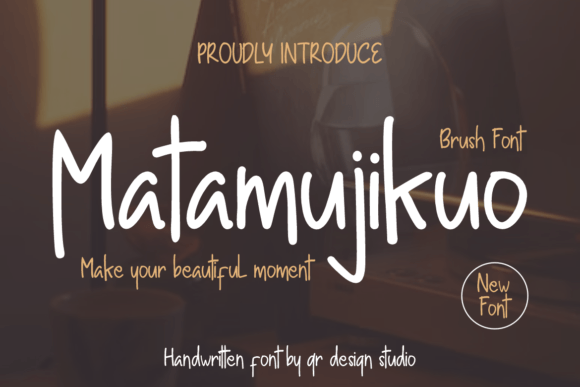
Welcome to the realm of Matamujikuo Font, a script typeface that embodies boldness and authenticity like no other. Created by the ingenious mind of qrdesignstd, this display font transcends the boundaries of creative expression. Matamujikuo Font's captivating strokes and dynamic structure make it a visual masterpiece, perfect for igniting your imagination and transforming your designs into works of art.
Unleash the power of Matamujikuo Font to elevate your branding projects to unprecedented heights. Imagine the impact it will create on your logo, wedding invitations, fashion designs, and countless other endeavors. This font was meticulously crafted to stand out in a multitude of contexts, ensuring that your creations captivate and inspire every viewer.
With Matamujikuo Font at your fingertips, you'll find endless opportunities to express your unique style and make a statement that resonates with your audience. Its bold and expressive characters dance across the page, leaving a trail of elegance and sophistication that will elevate your designs to the realm of timeless classics.
But Matamujikuo Font is more than just a collection of letters; it's an experience that ignites passion and creativity. Let your imagination soar as you explore the vast possibilities this font offers. Discover the joy of crafting designs that speak to the hearts of your customers, leaving a lasting impression that leaves them yearning for more.